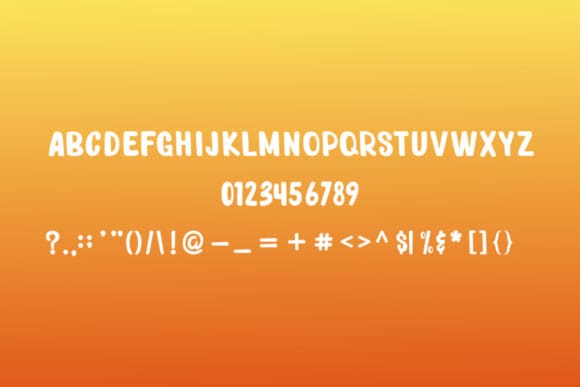
Crisa Display Font
Crisa Display Font is a fun and retro lettered display font. It is great for delivering any message with confidence, authenticity and charm. Use it for cartoons, magazine covers, games or pretty much anything that requires a jolly touch.